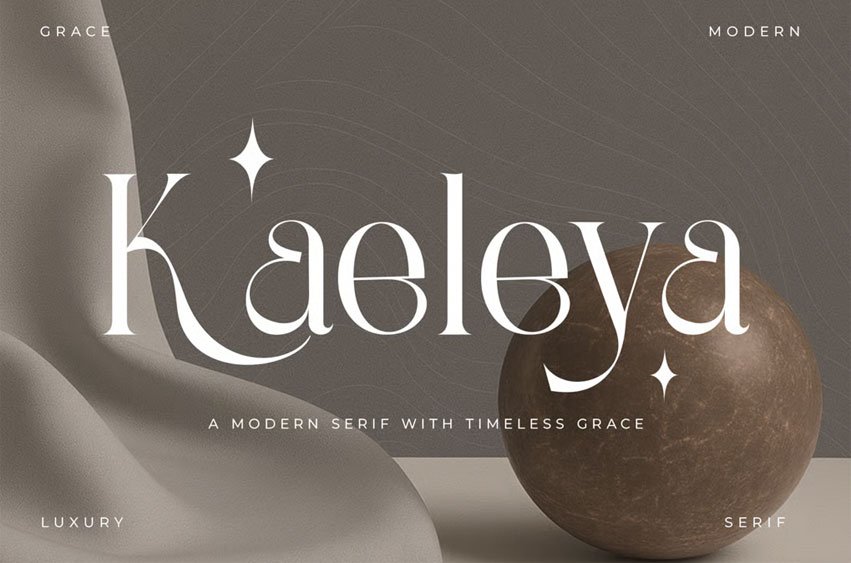
Kaeleya Font is a carefully designed serif featuring clean contrast, gentle shaping and a composed typographic voice. Its structure delivers clarity while maintaining character, making it suitable for headings, titles, layout compositions and statement text.
With balanced proportions and subtle detailing, Kaeleya adapts naturally to visual identity work, digital banners, print layouts, presentation design, and typography-focused projects.
- Stylistic alternates
A poised serif for designers who value tone, hierarchy and refined visual presence.